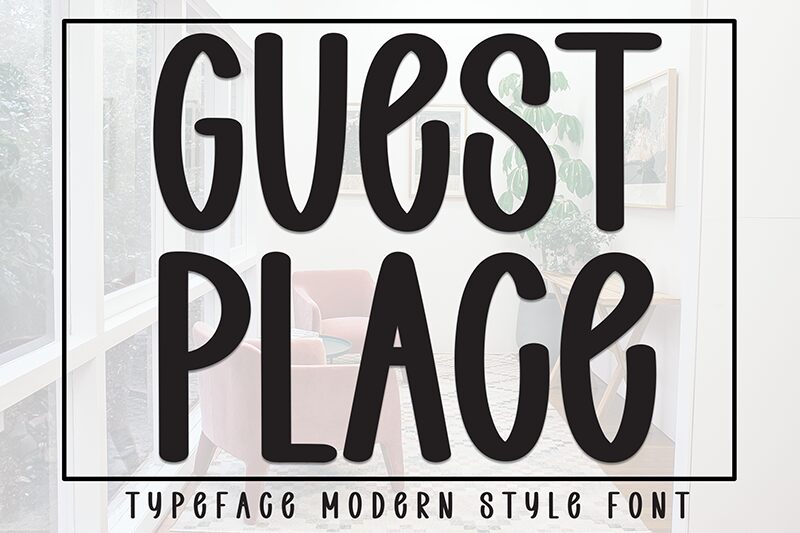
Guest Place
Guest Place font by Andi Moz is a condensed handwritten font with a hand-drawn appearance and casual elegance. It features an organic flow that evokes warmth and approachability through its friendly aesthetic. The font adds an artistic flair to contemporary design projects in general advertising uses or in branding.